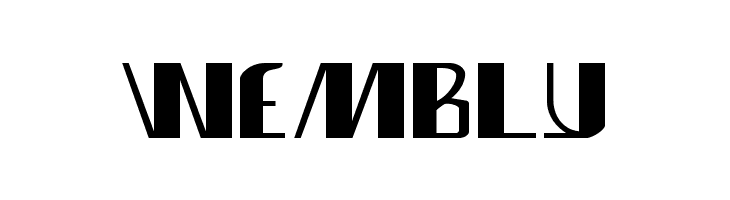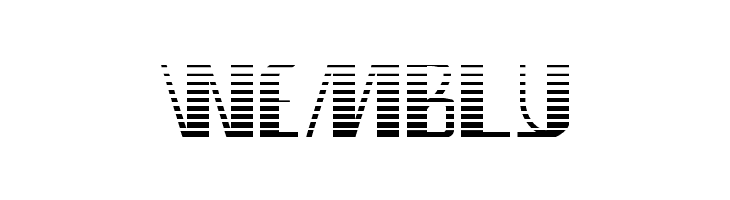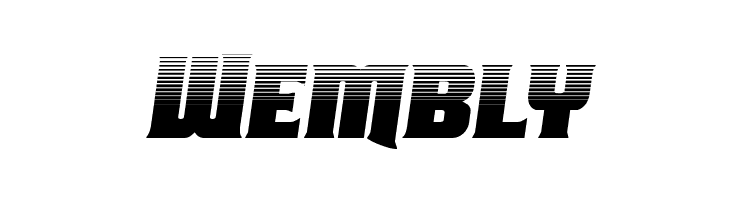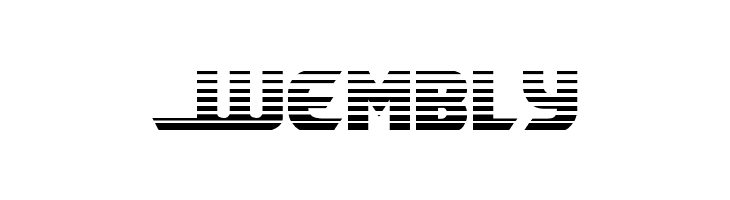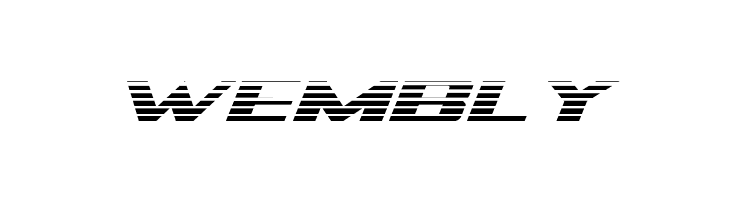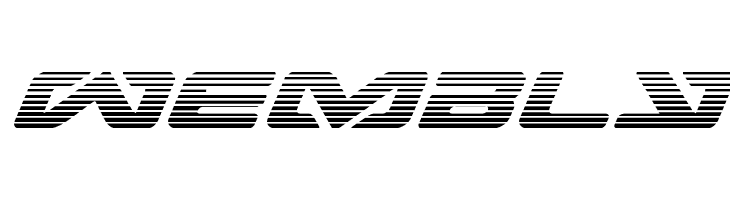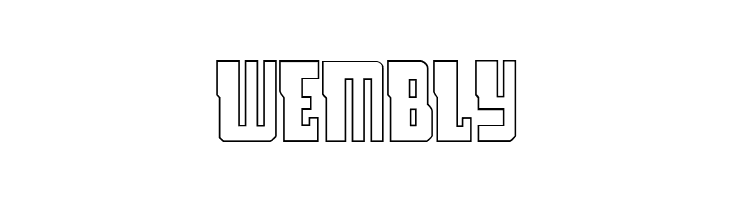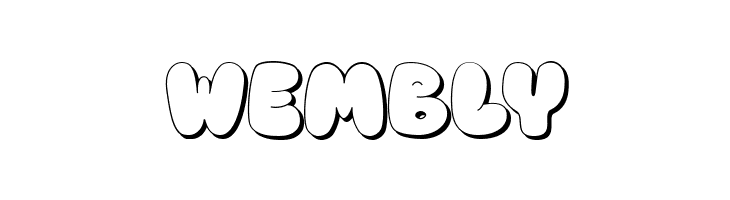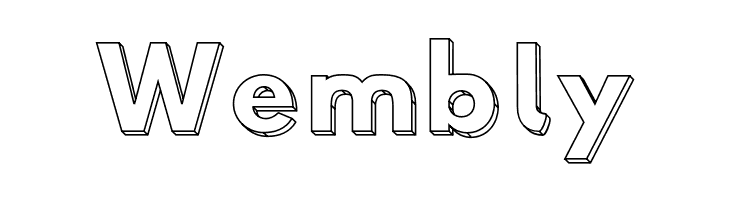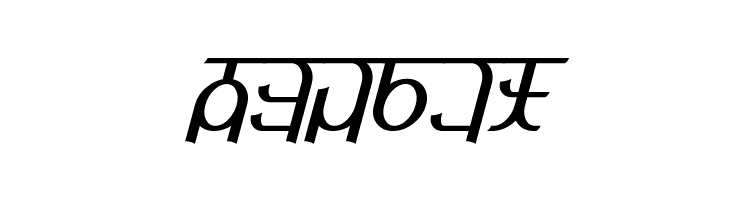
A bold, modern font with geometric shapes and high contrast, perfect for impactful designs.
A bold, geometric font with a gradient effect created by horizontal lines.
A bold, semi-italic font with a halftone effect, offering a dynamic and textured appearance.
A bold, italicized font with a modern, outlined style.
A bold, geometric font with a 3D outline effect, perfect for modern designs.
A bold, striped font with a modern, gradient effect.
A modern, italic font with a striped gradient effect, exuding energy and motion.
A futuristic, gradient-striped italic font with a dynamic and modern appeal.
A bold, 3D italic font with a playful, comic book style.
A futuristic, 3D, condensed italic font with a dynamic and modern style.
A bold, geometric outline font with a modern and futuristic style.
A playful, bold font with a bubble-like appearance and shadow effect.
A bold, textured font with a vintage, handcrafted feel.
A modern, dotted font with a geometric and cohesive design.
A bold, outlined font with a modern and geometric style.
Bold font with a shadow effect, combining vintage and modern elements.
A robust, extra bold serif typeface with high contrast and classic elegance.
A geometric, Art Deco-inspired font with bold lines and a modern aesthetic.
A bold, decorative font with a unique horizontal striped pattern.
A bold, geometric font with a futuristic and industrial design.
A bold, distressed font with a vintage, grunge aesthetic.
A bold, stencil-style font with a cracked texture for an industrial, rugged look.
A bold, handwritten font with playful curves and high contrast.
A bold, italicized font with a dynamic, angled design and high contrast.
A bold, futuristic font with a 3D outlined design and geometric shapes.
A dynamic, italicized font with angular, futuristic letterforms.
A futuristic, semi-italic font with bold, angular characters and a dynamic style.
A bold, italicized font with a striped, gradient effect, exuding a modern and dynamic style.
A bold, futuristic font with a 3D outline effect and geometric design.
A bold, 3D geometric font with a futuristic and impactful design.